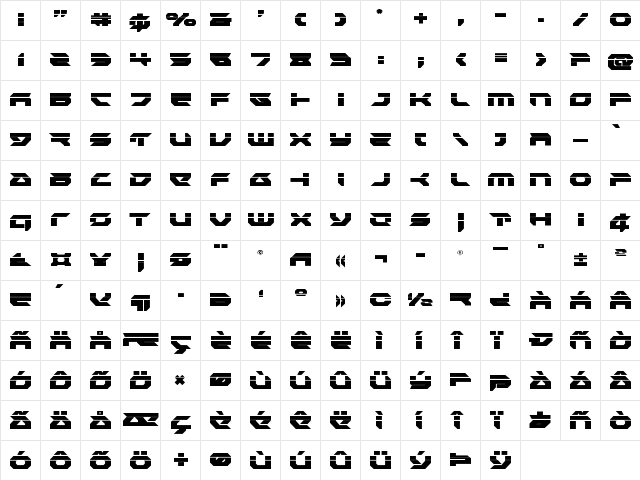
Royal Samurai Laser Regular
| Designer | Daniel Zadorozmy |
Design Context for Royal Samurai Laser Typeface
Royal Samurai Laser is a composed and adaptable typeface that performs quietly and consistently across a wide range of design contexts.